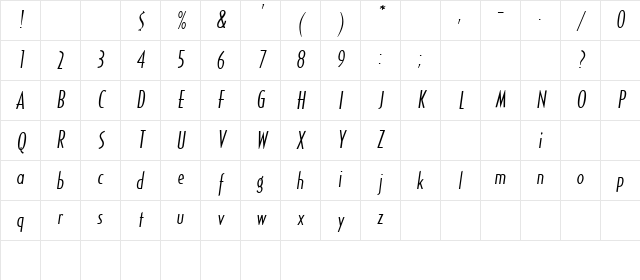
Landmark is a composed and adaptable typeface that performs quietly and consistently across a wide range of design contexts. The slanted form adds forward momentum and visual energy.
Pro Tip: Use Landmark for emphasis, pull quotes, and subheadings where its slanted energy can add rhythm to the layout.